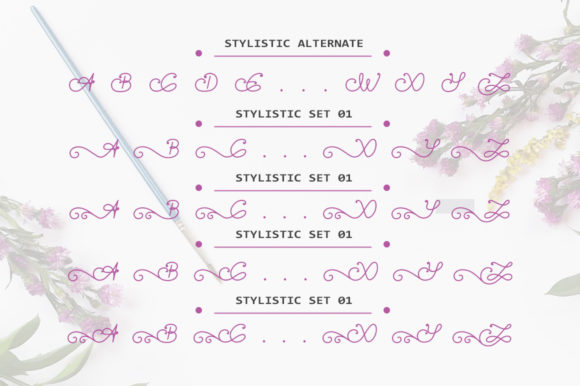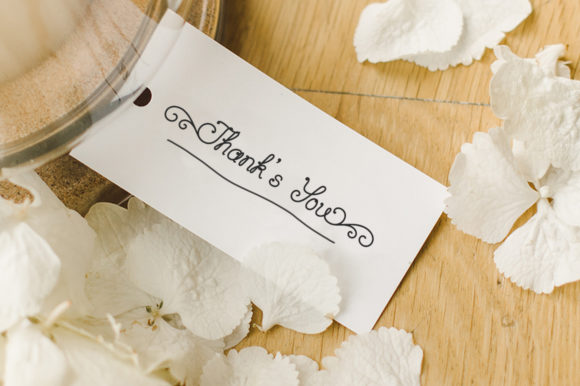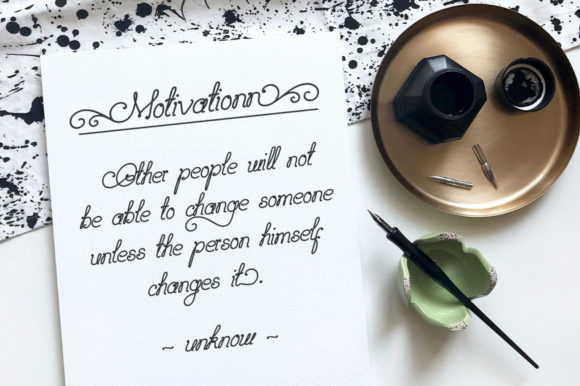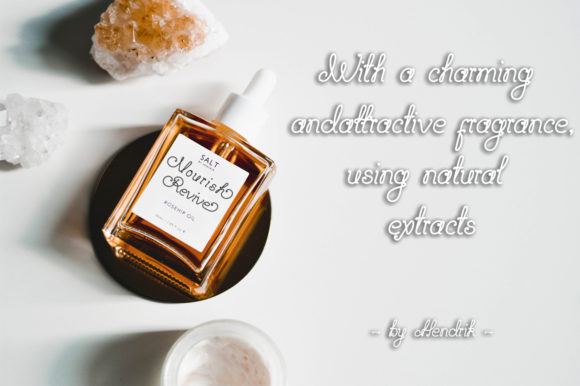
About Sweetheart Font
Sweetheart is a delicate script font that is readable, friendly and stylish. It is defined by smooth curves and is perfect for fashion branding or editorial designs. This font is PUA encoded which means you can access all of the glyphs and swashes with ease!